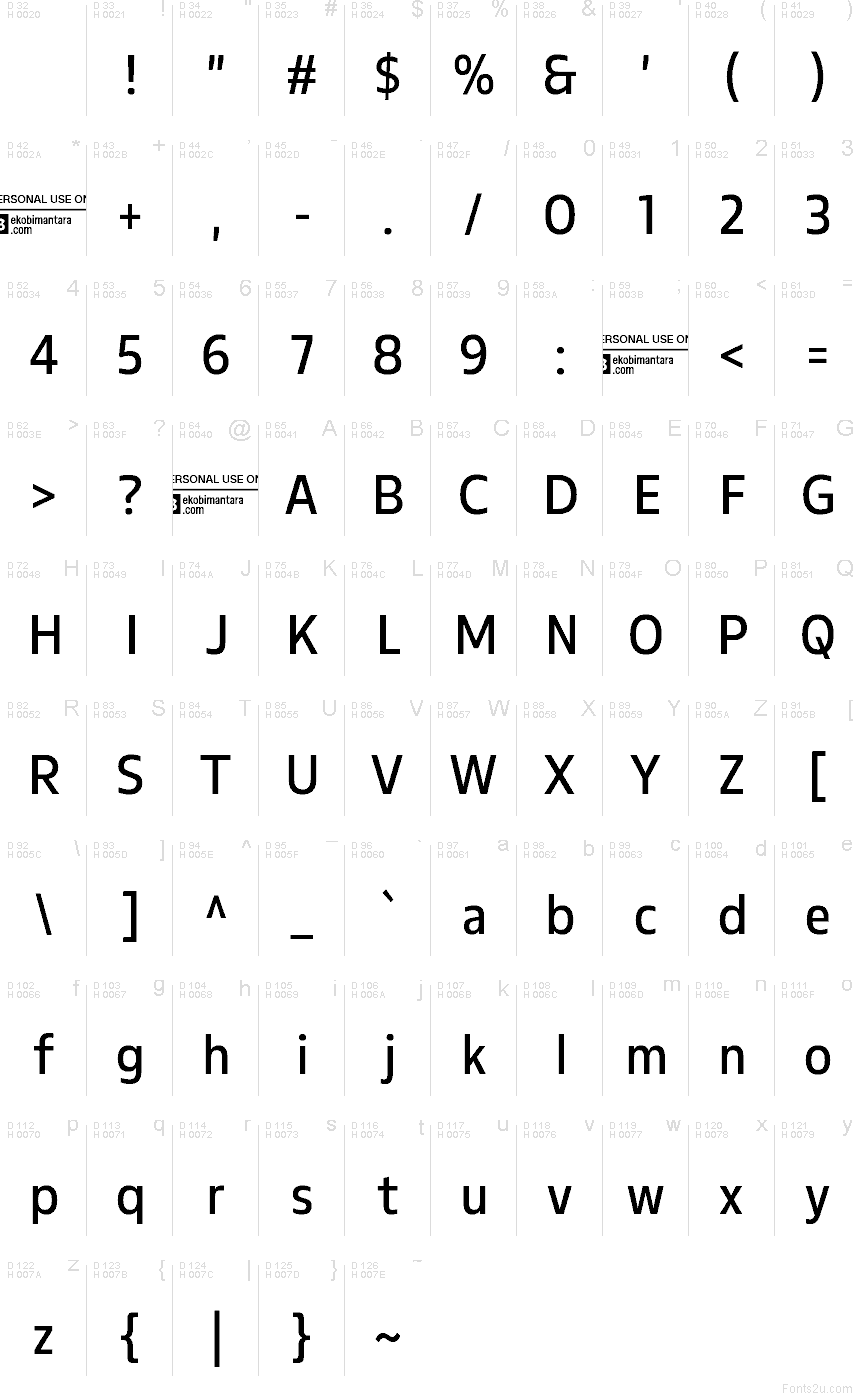
Profa Medium Condensed, a free condensed sans serif by Eko Bimantara, has a clean modern voice with a slightly softened, friendly edge. The letters feel narrow and upright, with generous curves in the round forms set against simple, straight verticals, which gives the font a crisp rhythm without turning severe.
It makes sense for branding systems, packaging, app graphics, editorial subheads, and poster titling where space is tight but the tone should stay contemporary. As a free font, it is especially useful for short headlines, cover lines, and wordmarks, since its compact width lets you fit more copy while keeping a calm, urban look.